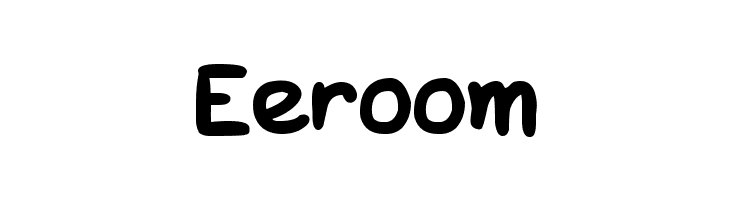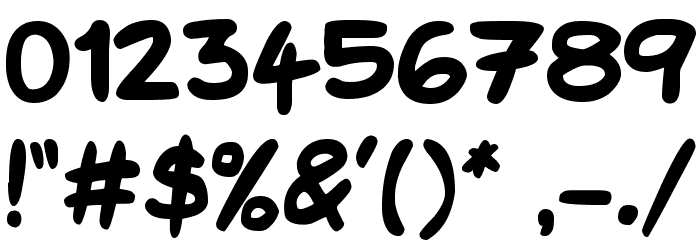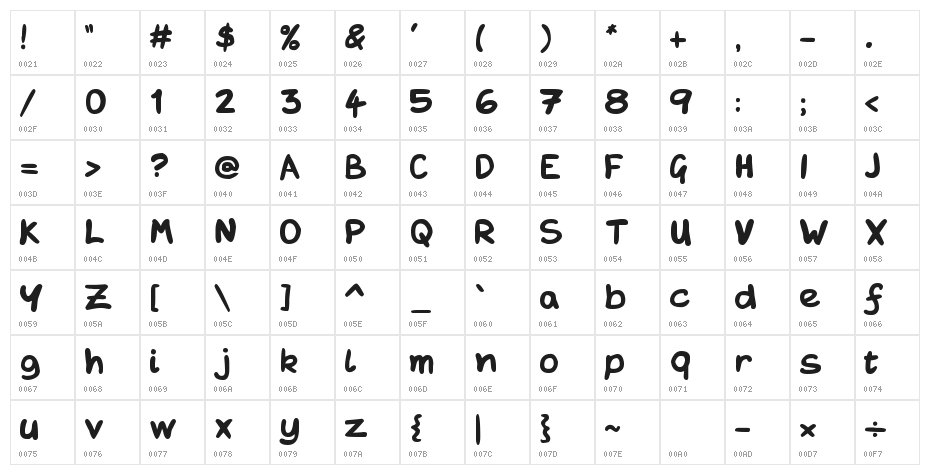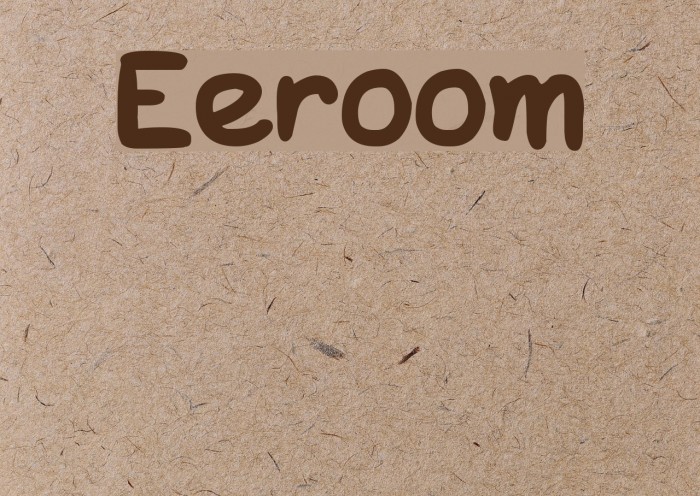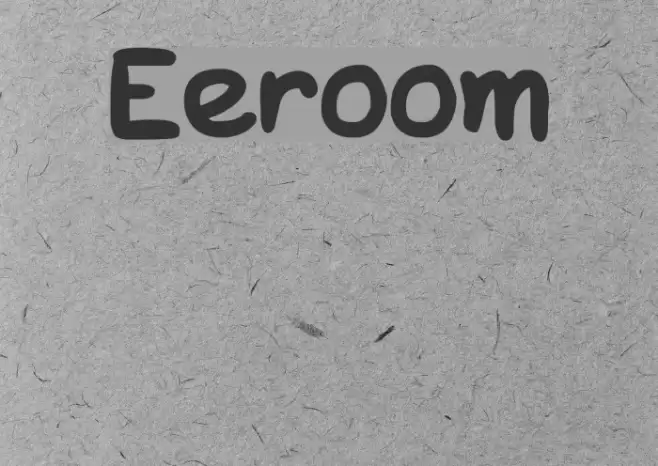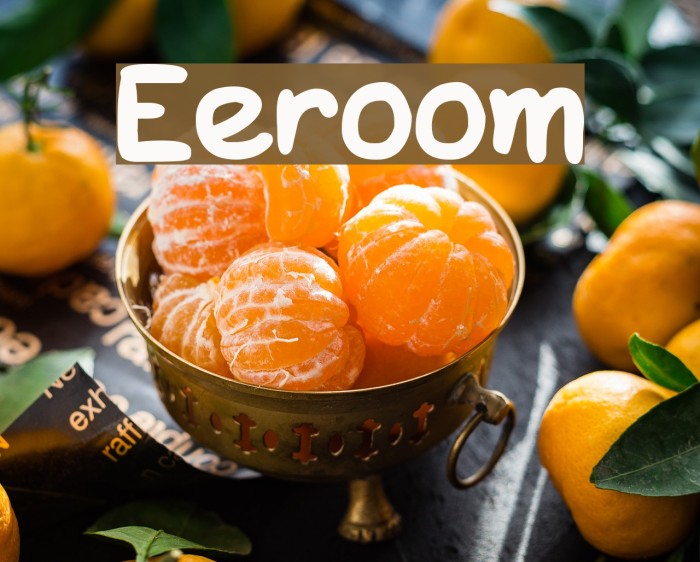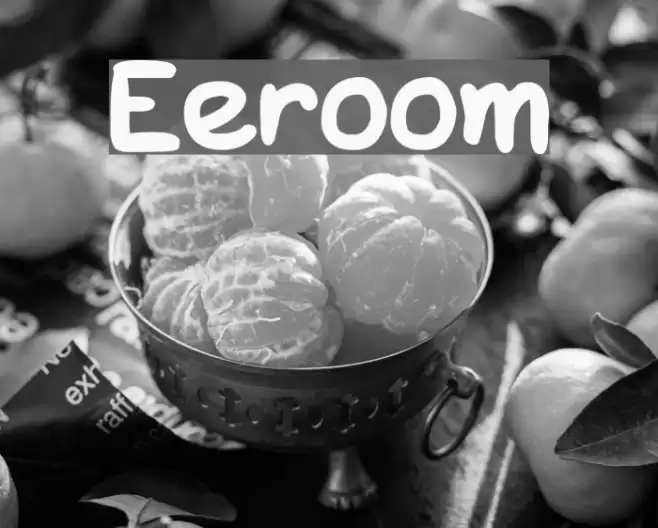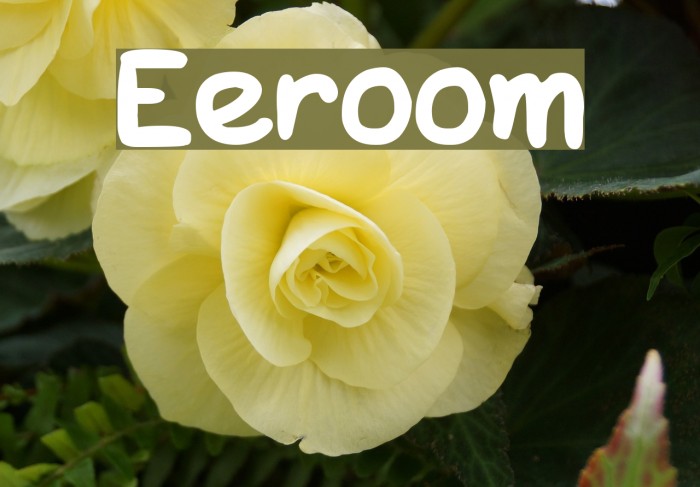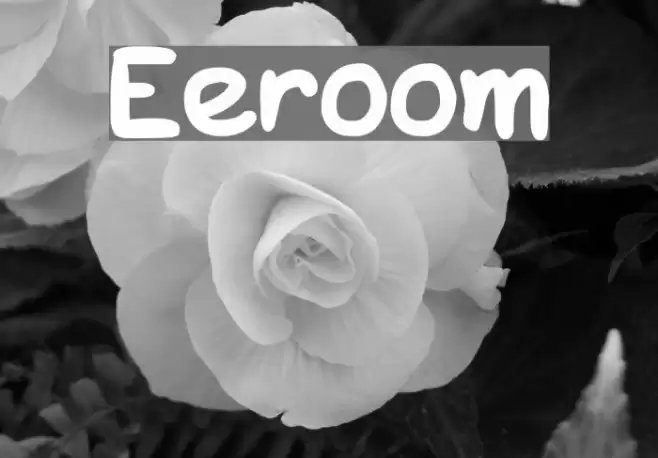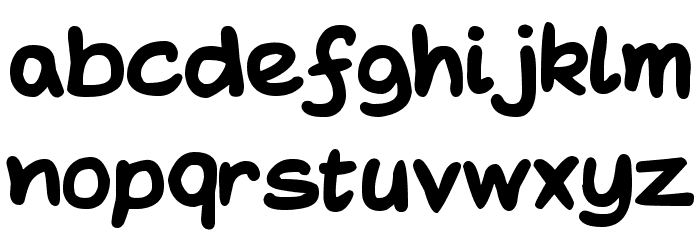
Eeroom Font
Eeroom Description
This playful and bold font features rounded edges and a handwritten style, giving it a friendly and approachable appearance. The letters are slightly irregular, adding to the casual and informal feel. The characters are well-spaced, ensuring readability while maintaining a lively and energetic vibe. The numbers and special characters follow the same style, making the font versatile for various uses. Its thick strokes and consistent weight make it stand out, perfect for capturing attention in creative projects.
| Proposed Projects | Ideal for children's books, playful branding, casual invitations, and creative posters. |